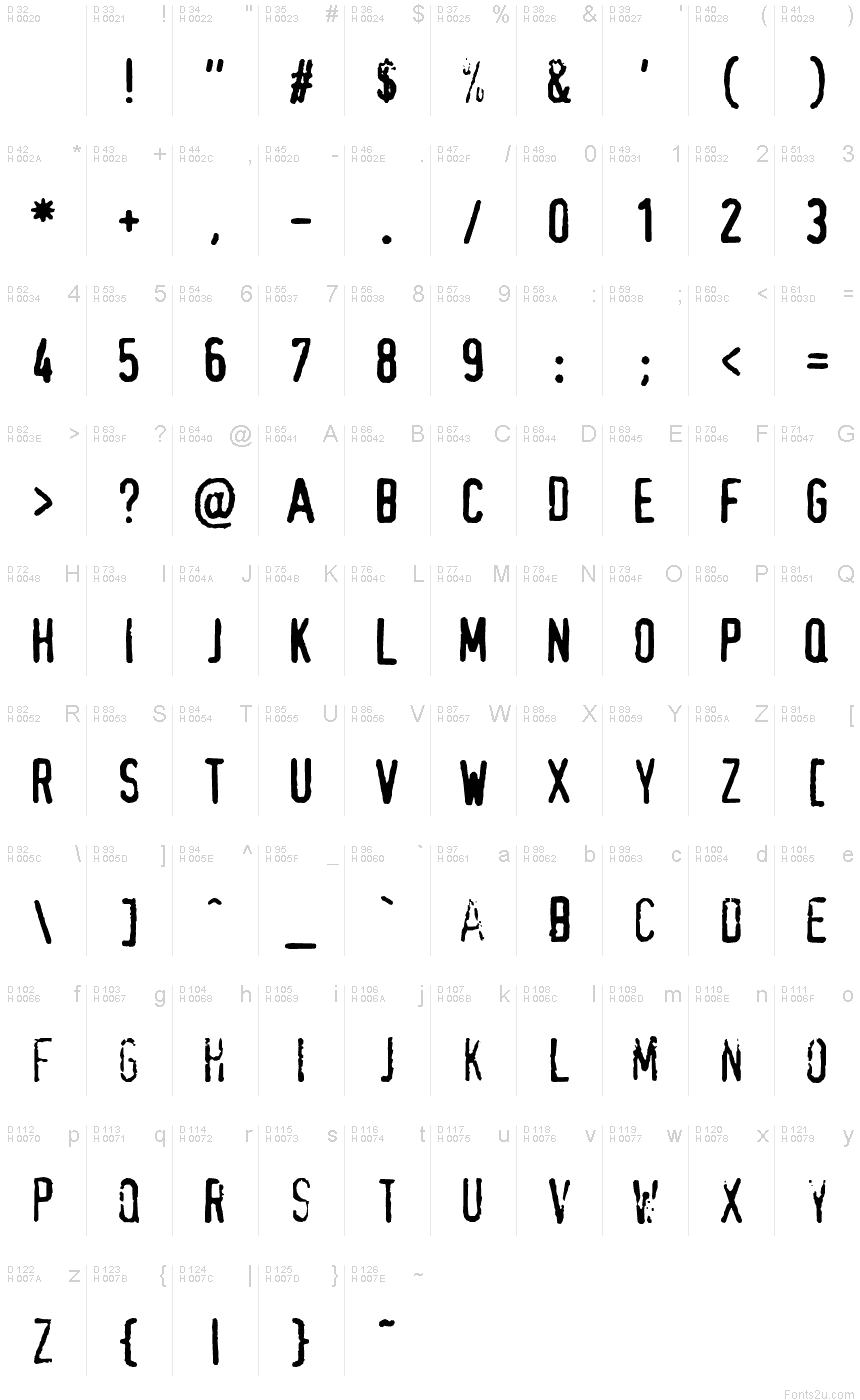
XBAND Rough
XBAND Rough, from Catapult Entertainment, is a free eroded display font with the blunt, worn feel of stamped lettering that has taken a few knocks. The caps look heavy and condensed, but the real character is in the uneven edges, softened corners, and chipped shapes that make the letters feel scraped, pressed, and a little industrial.
It fits naturally in game branding, poster headlines, zine covers, title cards, and merchandise graphics where a clean display font would feel too controlled; as a free font, it also works well for quick logos and short cover lines. Because the roughness repeats across the letters instead of sitting on one gimmick, the font holds together best in brief words, marks, and other compact display settings.